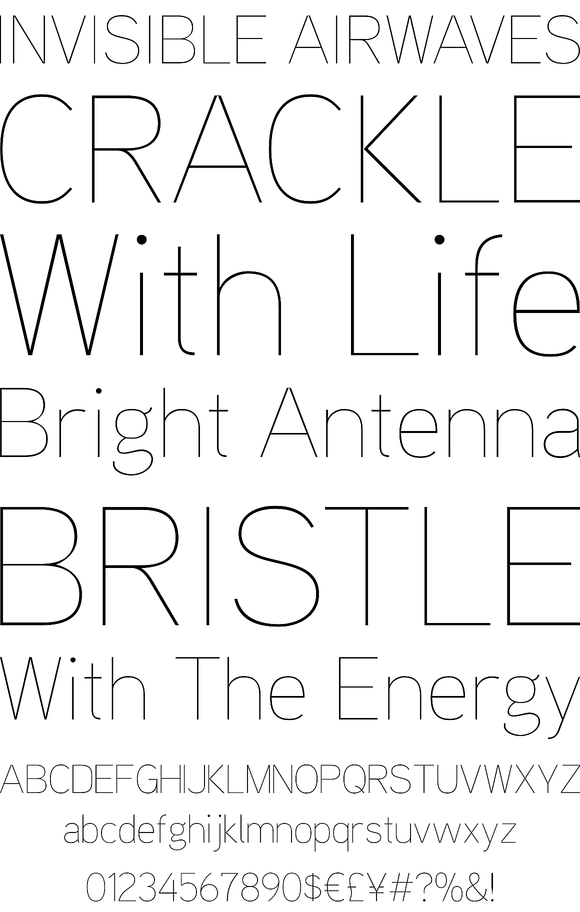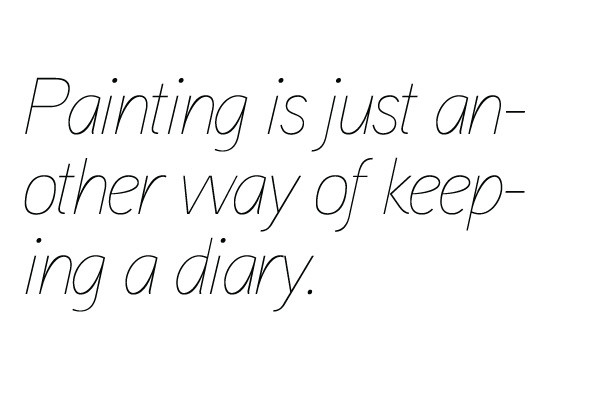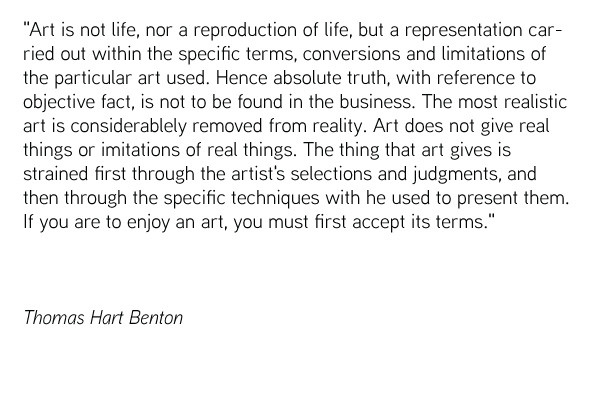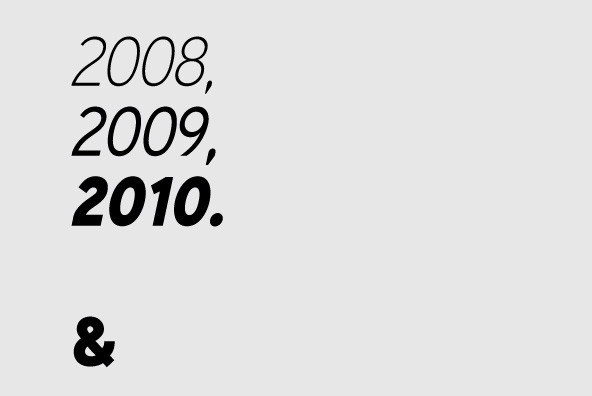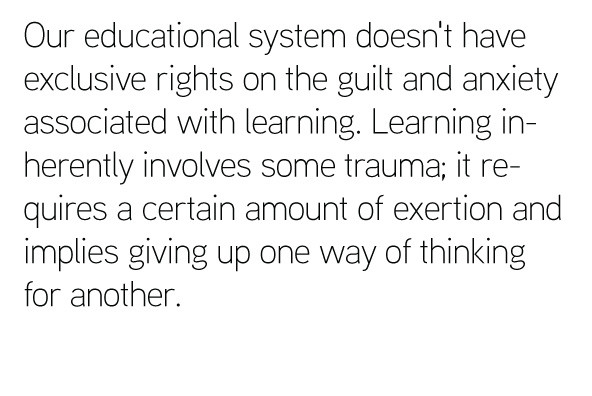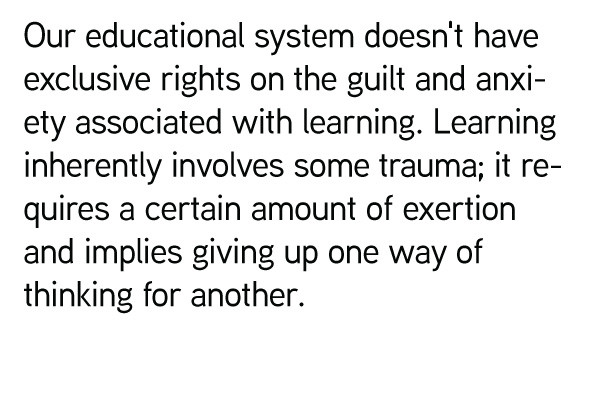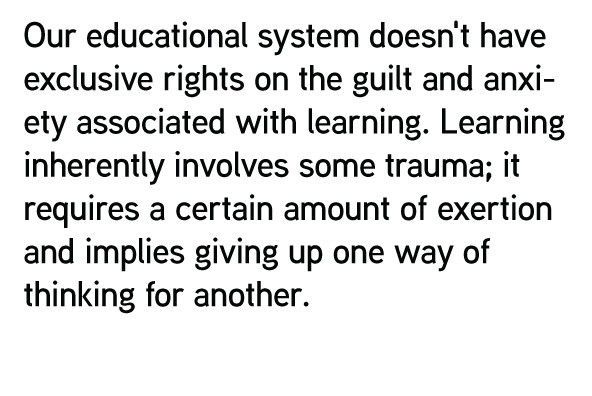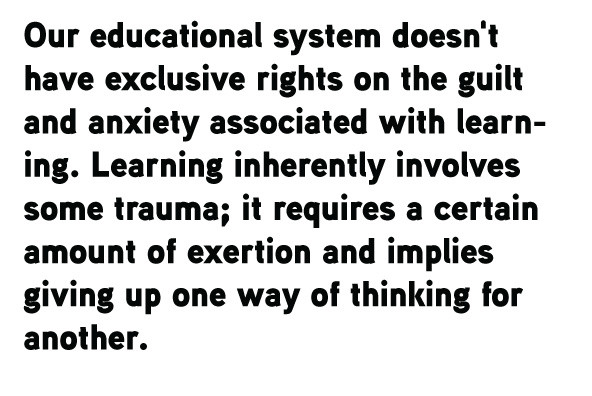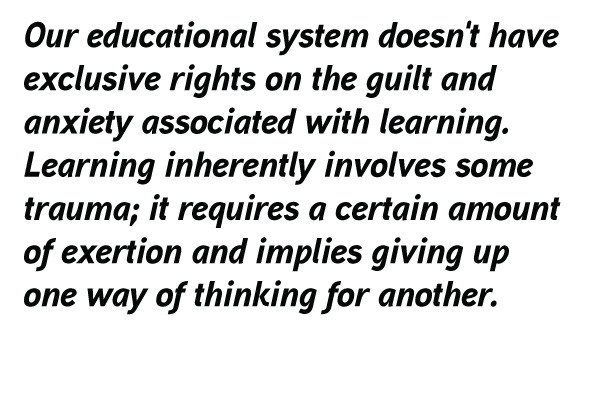
Aaux Next Family
When the original Aaux was introduced in 2002, I intended to go back and expand the family to offer more versatility. Years went by before I was willing to pick it up again and invest the proper time into building a viable and useful recut. Just putting a new designation and tweaking a few glyphs here and there would not do the designer or the typeface justice; instead, I chose to redraw each glyph's skeleton from scratch for the four main subsets of the super family along with their italics. Each glyph across the super family is 'connected at the hip' with each style - each character carries the no frills, simple architecture that endeared so many users to it.